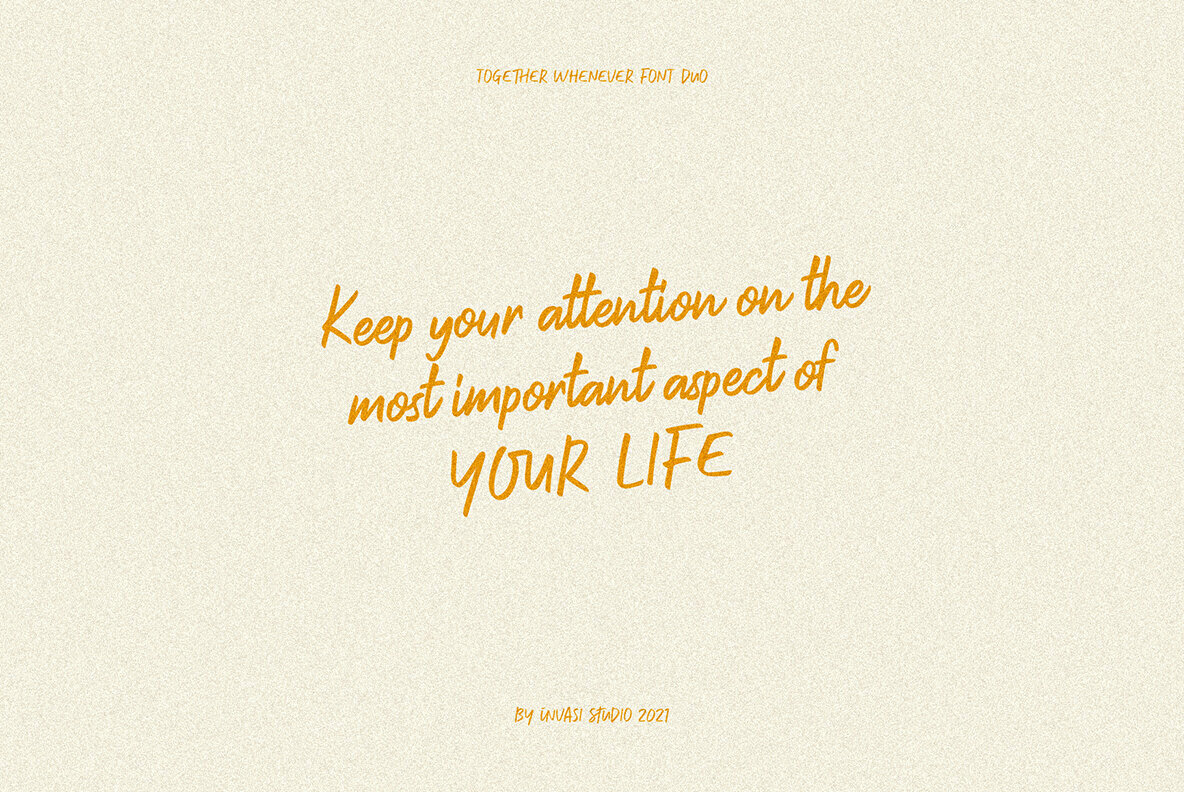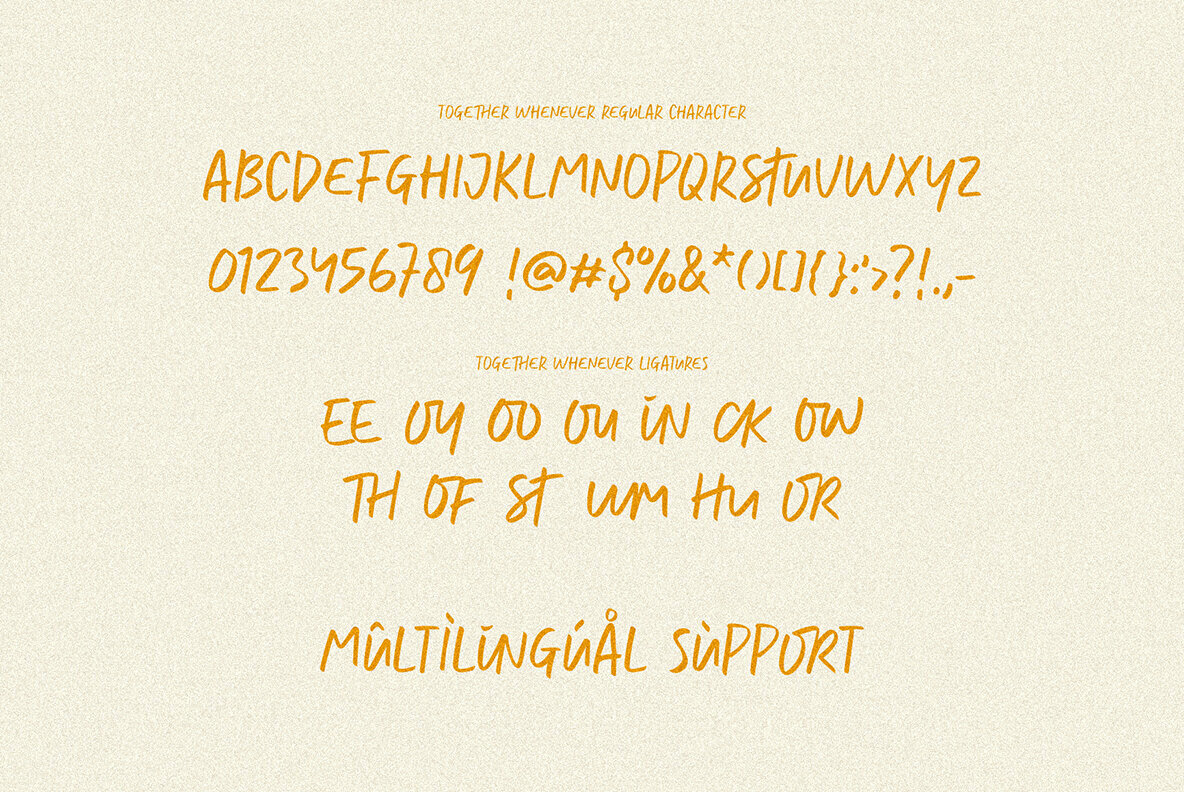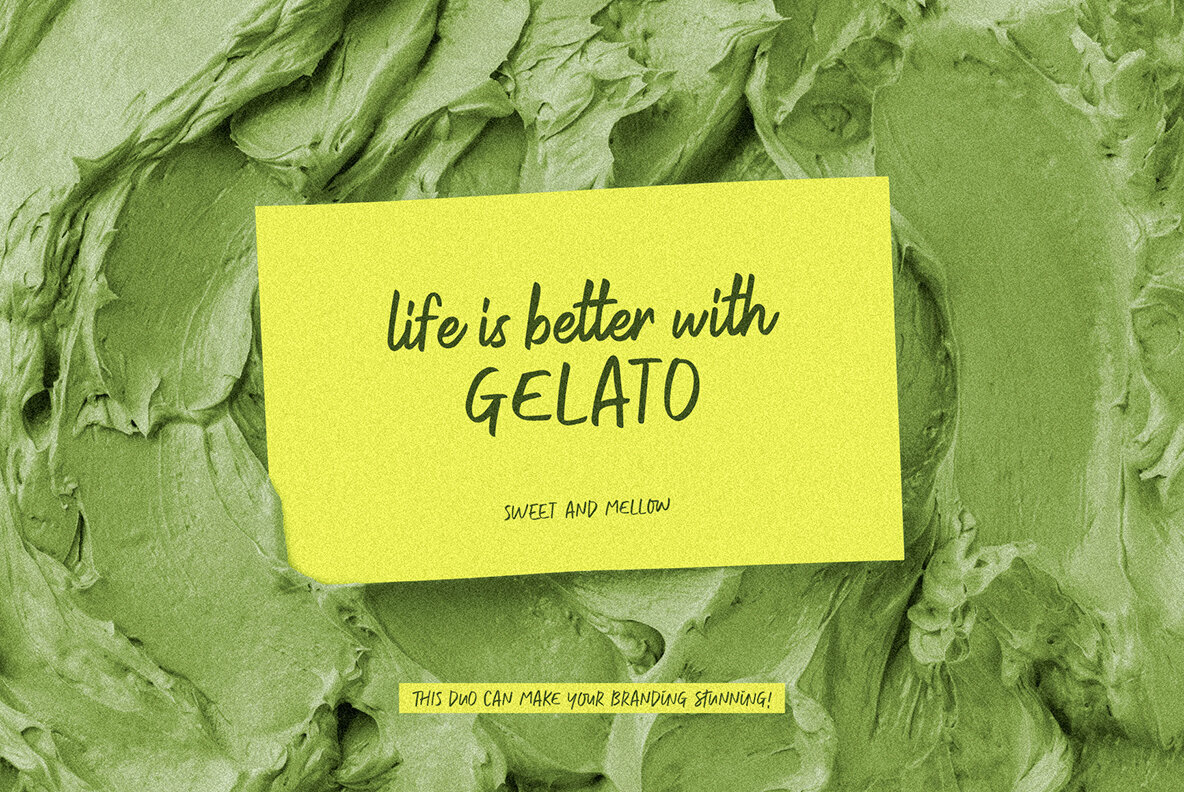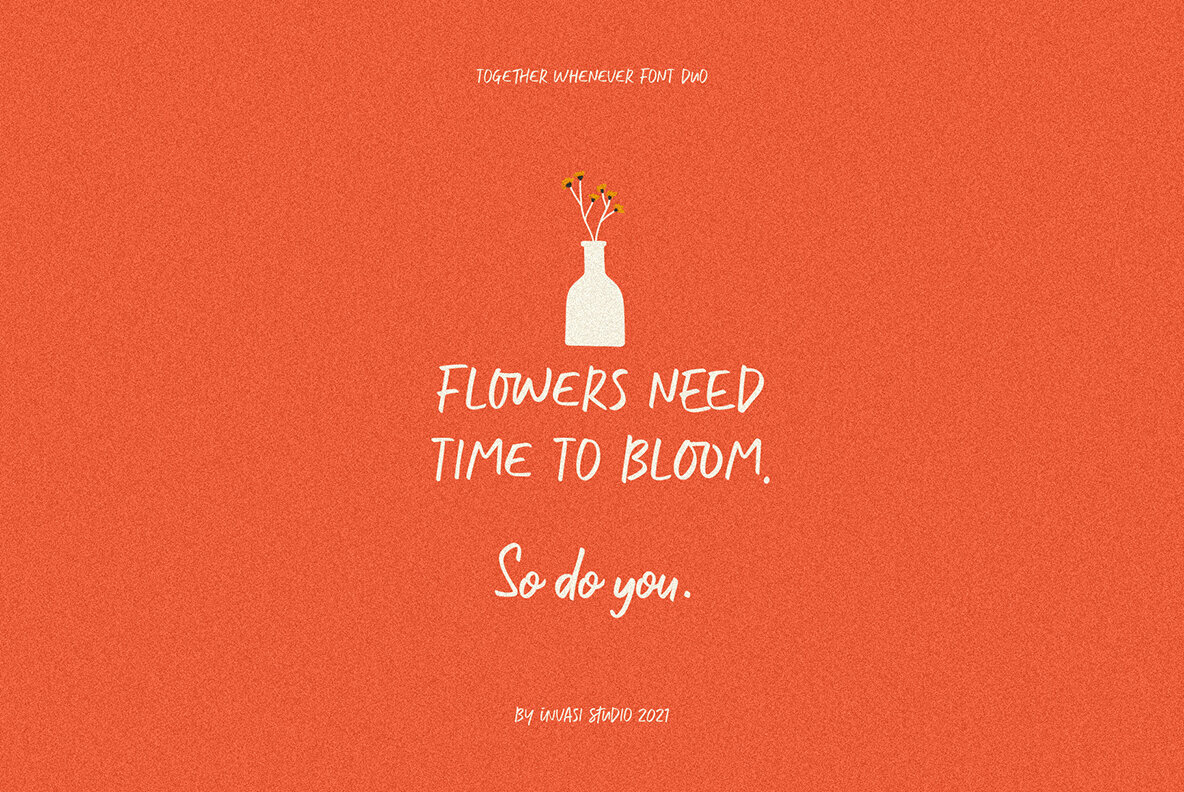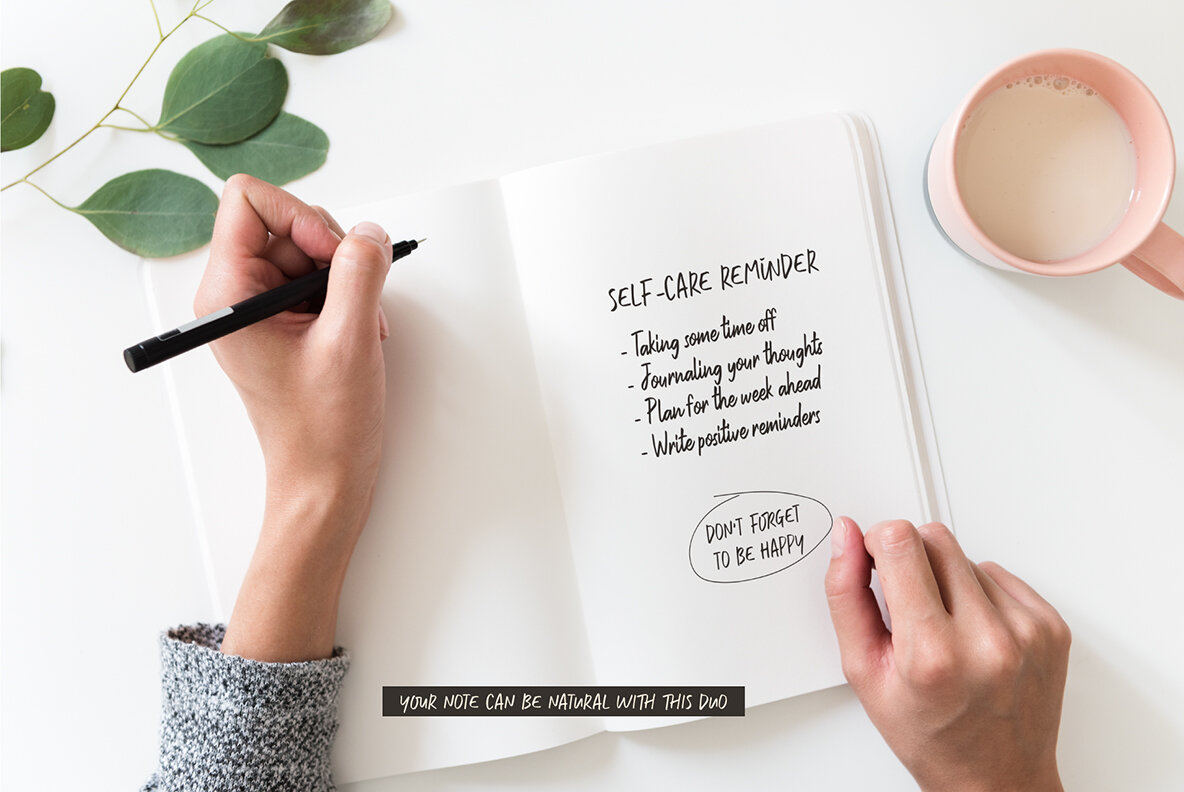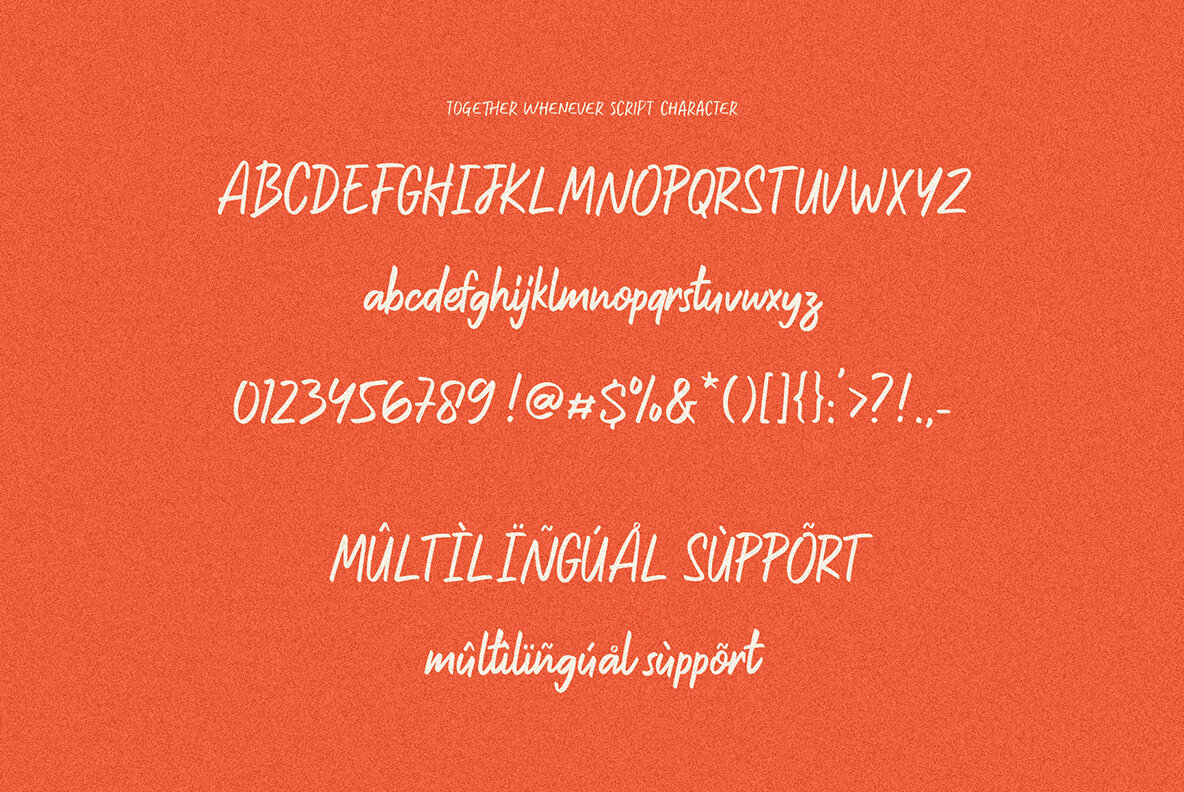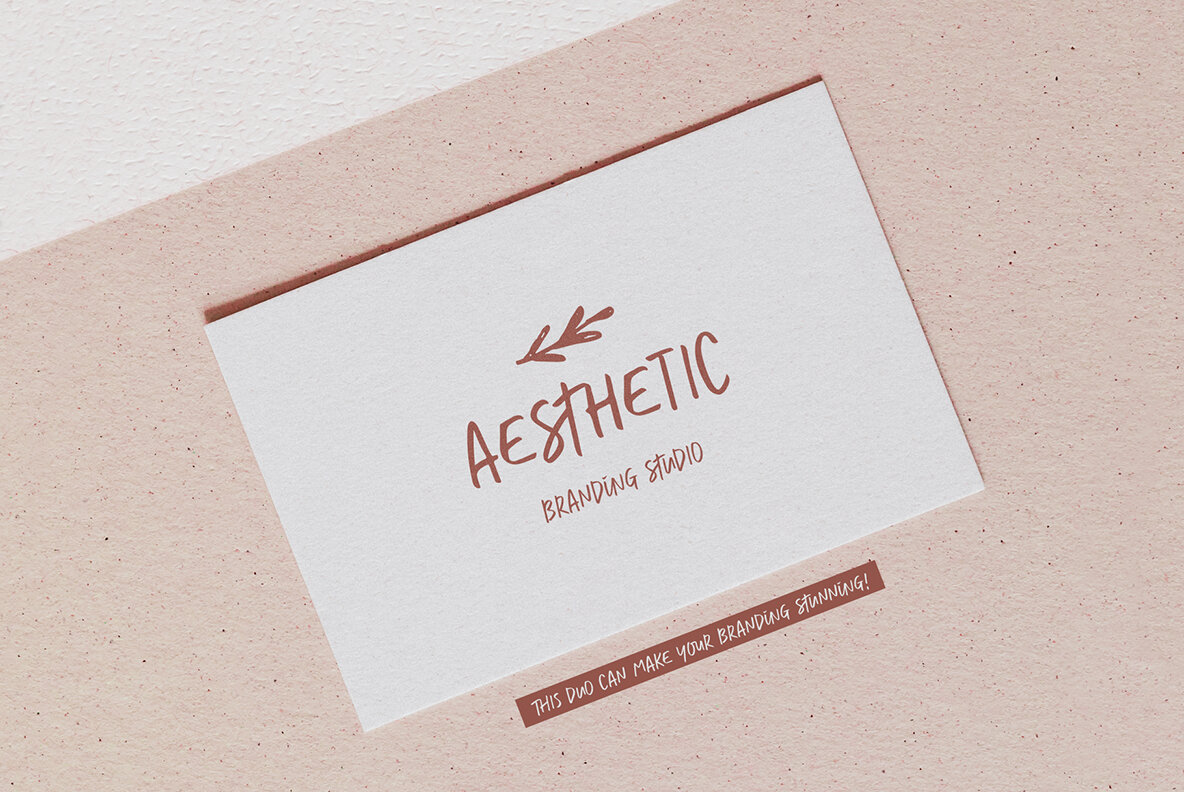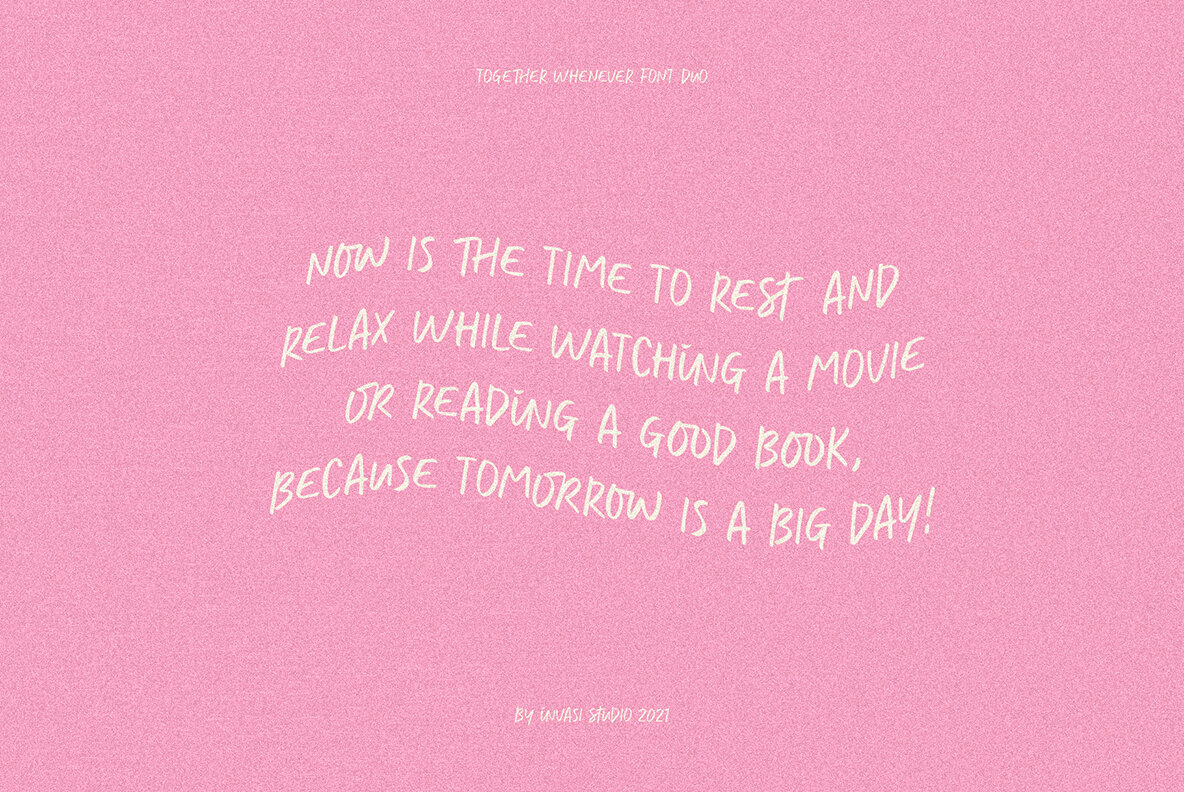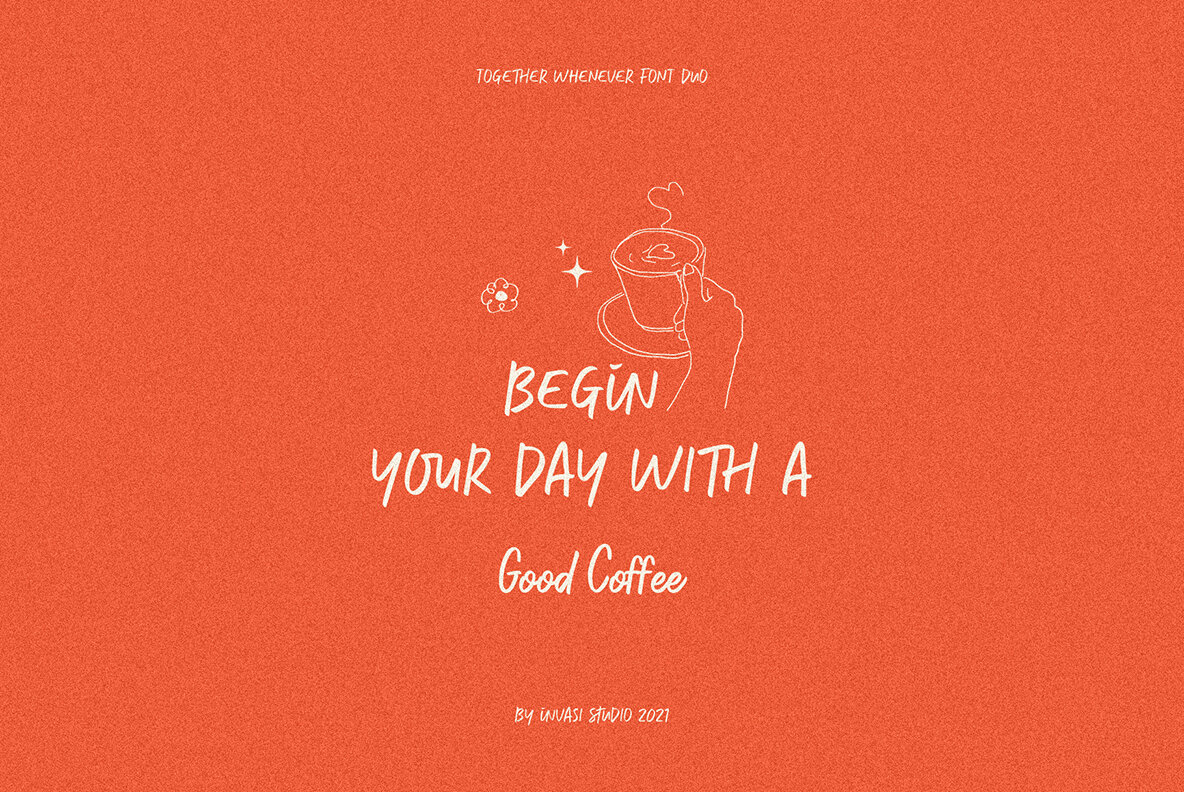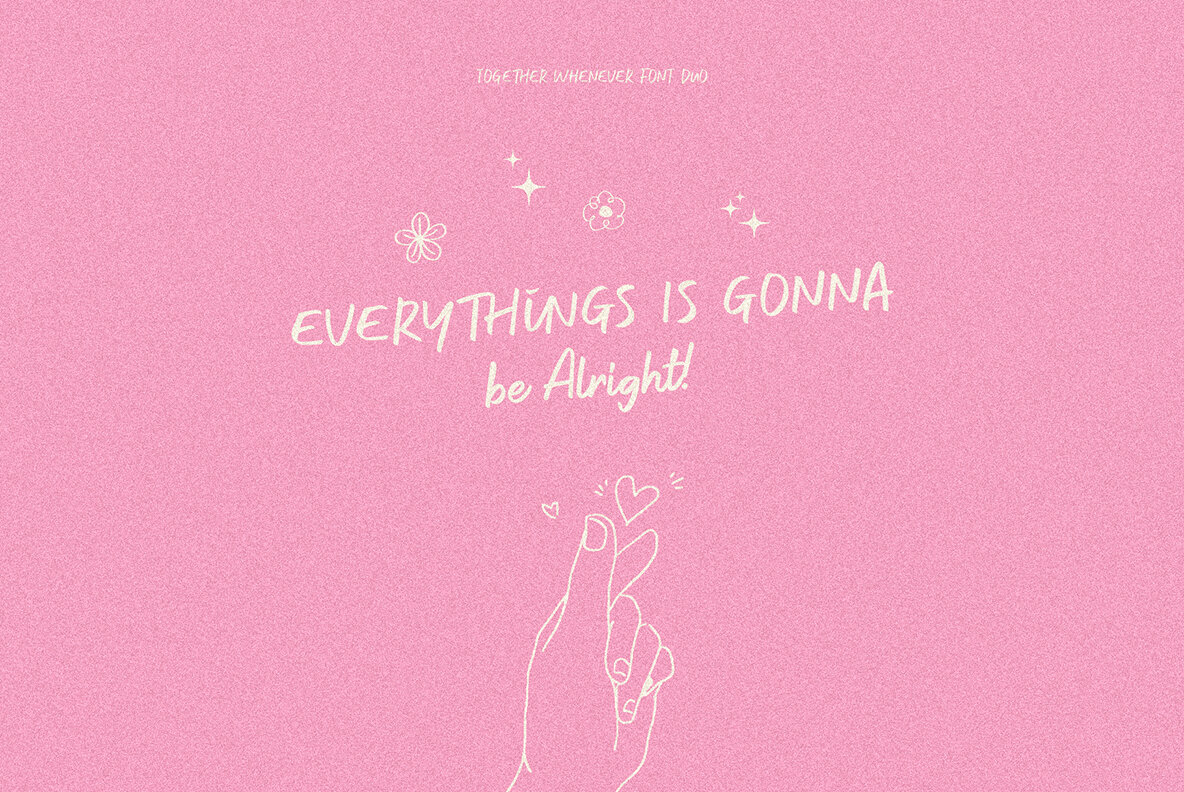
Together Whenever Font Duo
The Together Whenever a sweet hand-lettered Font Duo. A casual handwriting marker style all-caps font and a matching Script make up this combo. It can be easily matched to an incredibly wide variety of projects, so try incorporating it into your creative ideas and see how it elevates them!